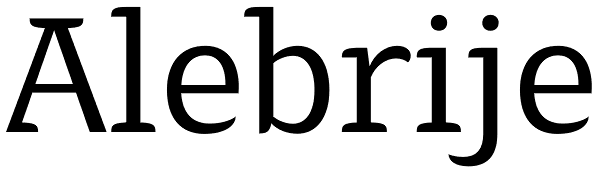
Alebrije
I have a lot of “regular” fonts, but from time to time I need something more emotional for exceptional musical projects. This typeface was first used in spring 2015 for a certain CD cover and merchandising. Its sharp serifs and details fit...